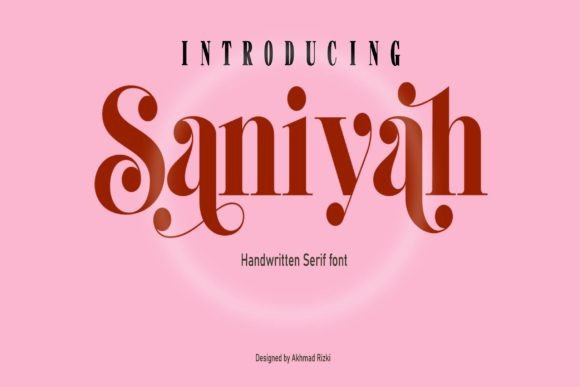
Unleash the Enchantment of Saniyah Font: Your Gateway to Design Brilliance
Saniyah Font - A Journey into Timeless Beauty and Unparalleled Design
In a world of digital aesthetics, where the fonts you choose become a reflection of your style, Saniyah Font emerges as a breathtaking serif masterpiece, crafted with a touch of magic and designed to captivate your audience. Its enchanting curves, elegant edges, and exquisite details will elevate your creative projects to new heights.
Saniyah Font: The Perfect Symphony of Beauty and Functionality
Whether you're a graphic designer seeking inspiration, a branding expert searching for distinction, or a creative entrepreneur looking to make a statement, Saniyah Font is your perfect match. Its versatility knows no bounds, effortlessly adorning wedding invitations with a touch of romance, gracing fashion magazines with an air of sophistication, and leaving an unforgettable mark on logos, signatures, and watermark photography.
Saniyah Font: A Font Rich in Features, Generous in Possibilities
Saniyah Font is more than just a font; it's a gateway to boundless design possibilities. With its PUA encoding, you gain effortless access to a world of glyphs and swashes, allowing you to unleash your creativity without limits. Explore a universe of intricate details, exquisite flourishes, and stunning ornaments, ready to transform your designs into masterpieces.
Saniyah Font: Your Ultimate Design Ally in the Digital Realm
In this era of digital communication, your online presence is your calling card. With Saniyah Font, you'll leave a lasting impression in every realm, from social media posts to captivating presentations, from eye-catching email campaigns to professional reports. Let Saniyah Font be your secret weapon, enchanting your audience with its timeless beauty and unparalleled charm.
Embrace Saniyah Font: The Perfect Font for Your Design Dreams
Saniyah Font is more than just a collection of characters; it's an investment in your creative journey. Its timeless elegance and versatility will accompany you through countless projects, adding a touch of magic to each one. As you explore the possibilities, you'll discover that Saniyah Font is not just a font; it's a partner, guiding you towards design excellence.